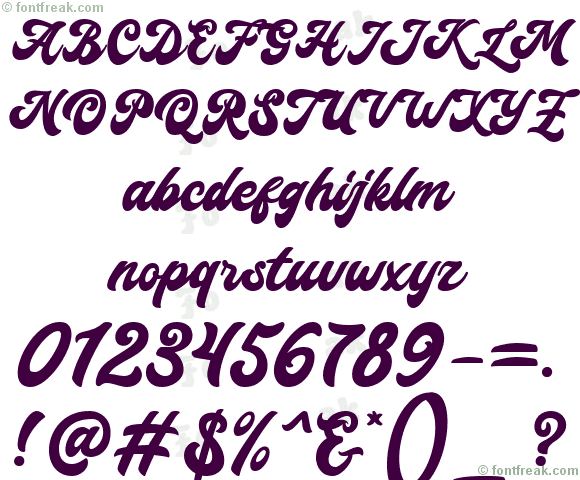
Slothdown Baby
About Slothdown Baby
Slothdown Baby is a playful display font designed by Situjuh Nazara in 2019. This font embodies a unique blend of whimsy and charm, making it an excellent choice for a variety of creative projects. Characterized by its rounded, soft strokes and a delightful casual vibe, Slothdown Baby features moderate stroke weight with minimal contrast, lending it an approachable and friendly appearance. The letters are well-spaced, ensuring readability while maintaining a fun aesthetic. The font’s decorative elements, such as the playful curves and embellishments, contribute to its distinctive character, making it stand out in any design.
This versatile font is perfect for a range of applications. It can shine in children's book covers, where its playful nature captures the imagination of young readers. Additionally, Slothdown Baby is well-suited for crafting eye-catching wedding invitations, where the fun yet elegant design can set a joyful tone. Restaurant menus can also benefit from its inviting style, making dishes appear more appealing. Furthermore, content creators can utilize this font in social media graphics to attract attention and engage audiences effectively.
What sets Slothdown Baby apart is its ability to infuse warmth and personality into any design. This unique font combines fun aesthetics with practical usability, making it a valuable addition to any designer's toolkit. For those interested in elevating their projects, the Slothdown Baby font free download is an opportunity not to be missed.